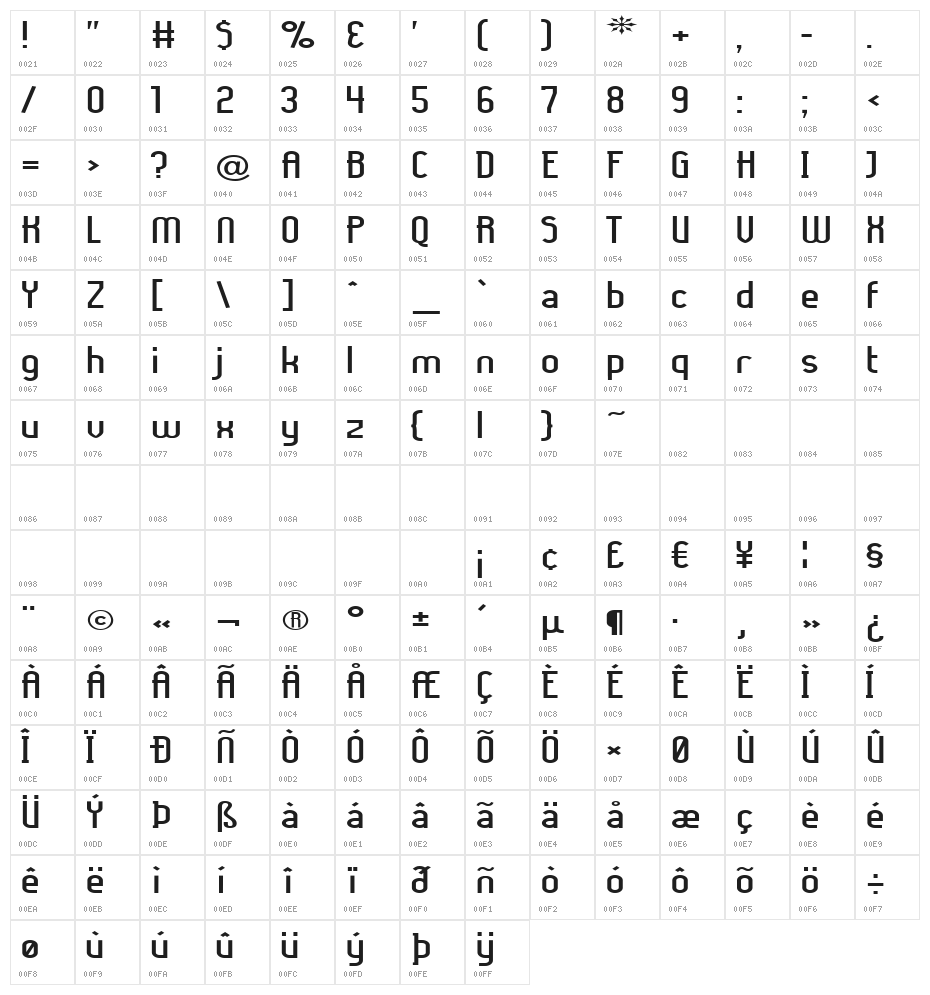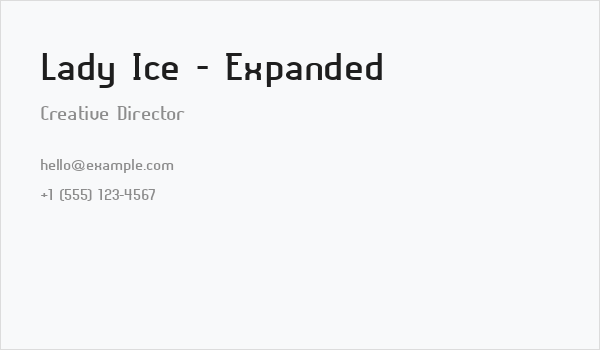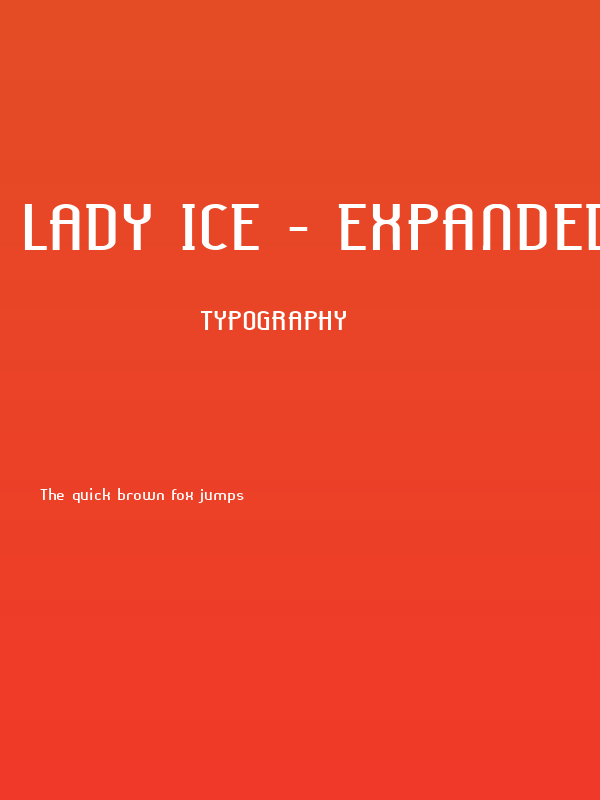
Lady Ice - Expanded Font
Lady Ice - Expanded Description
This font features a modern and sleek design with a geometric structure. The characters are tall and narrow, giving an expanded appearance. The uppercase letters have a uniform height, while the lowercase letters maintain a consistent baseline. The numerals are clear and distinct, matching the overall style of the alphabet. Special characters are well-integrated, maintaining the font's cohesive look. The strokes are even, with a medium contrast that adds to the font's readability. Its clean lines and contemporary feel make it suitable for various design applications.
| Proposed Projects | Ideal for branding, advertising, and editorial design where a modern and clean aesthetic is desired. |